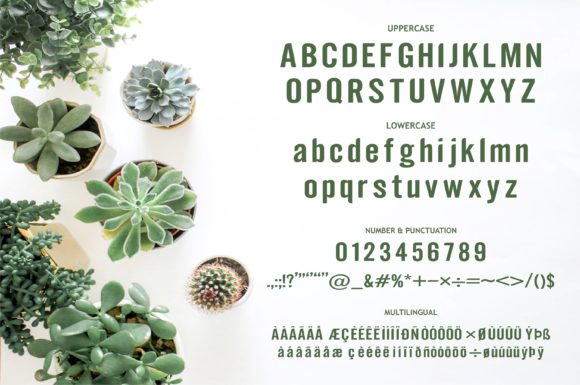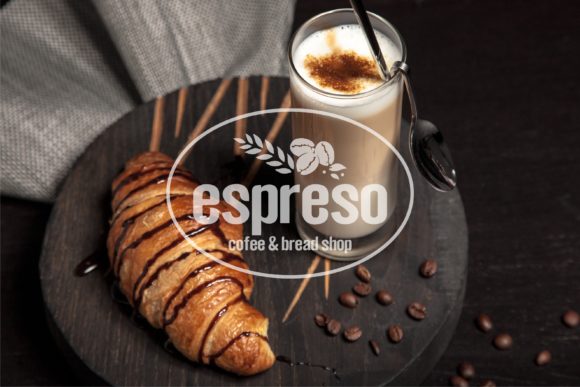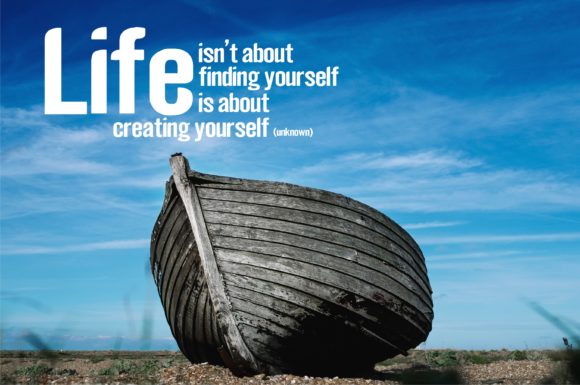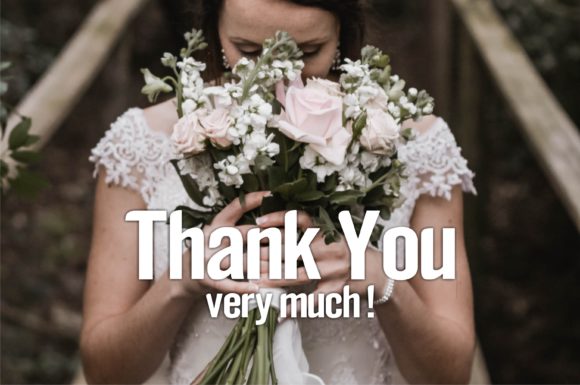
Introducing Estherilla Font: The Ultimate Clean Display Font for Stunning Designs
In the world of design, typography plays a crucial role in making a lasting impression. A well-chosen font can elevate your design, convey your message effectively, and leave a lasting impact on your audience. If you’re a designer or crafter looking for a font that can make your designs stand out, look no further than Estherilla Font. This clean display font is specifically designed to add a touch of boldness and sophistication to any design, making it perfect for business-related designs.
What is Estherilla Font?
Estherilla Font is a clean display font that boasts bold letters, carefully crafted to make a statement. Its sleek and modern design ensures that your text is always legible, making it ideal for use in a variety of design projects, from logos and branding materials to posters, flyers, and more. The font’s clean lines and minimalist aesthetic ensure that it pairs well with a wide range of design styles, from modern and edgy to elegant and sophisticated.
Key Features of Estherilla Font
- Bold and Eye-Catching: Estherilla Font’s bold letters are designed to grab attention and make a lasting impression.
- Clean and Legible: The font’s clean design ensures that your text is always easy to read, even at smaller sizes.
- Versatile: Estherilla Font can be used for a wide range of design projects, from business-related designs to personal projects.
- Modern and Sophisticated: The font’s sleek and modern aesthetic adds a touch of sophistication to any design.
Why Choose Estherilla Font?
With so many fonts available, why choose Estherilla Font? Here are just a few reasons why designers and crafters love this font:
- Unique and Memorable: Estherilla Font’s bold and eye-catching design ensures that your text stands out from the crowd.
- High-Quality: Estherilla Font is a high-quality font, carefully crafted to ensure that it looks great in any design.
How to Use Estherilla Font in Your Designs
Estherilla Font is easy to use in a variety of design projects. Here are a few ideas to get you started:
- Logos and Branding: Use Estherilla Font to create a bold and memorable logo for your business.
- Posters and Flyers: Add a touch of sophistication to your posters and flyers with Estherilla Font.
- Social Media Graphics: Use Estherilla Font to create eye-catching social media graphics that stand out from the crowd.
- Packaging Design: Add a touch of elegance to your packaging design with Estherilla Font.
Tips for Getting the Most Out of Estherilla Font
Here are a few tips for getting the most out of Estherilla Font:
- Experiment with Different Sizes: Estherilla Font looks great at a variety of sizes, from small to large.
- Pair with Other Fonts: Try pairing Estherilla Font with other fonts to create a unique and memorable design.
- Use in Combination with Images: Use Estherilla Font in combination with images to create a visually appealing design.
In conclusion, Estherilla Font is a versatile and stylish clean display font that’s perfect for designers and crafters looking to add a touch of boldness and sophistication to their designs. With its bold letters, clean design, and modern aesthetic, Estherilla Font is sure to make any design stand out. Whether you’re working on a business-related design or a personal project, Estherilla Font is a great choice.